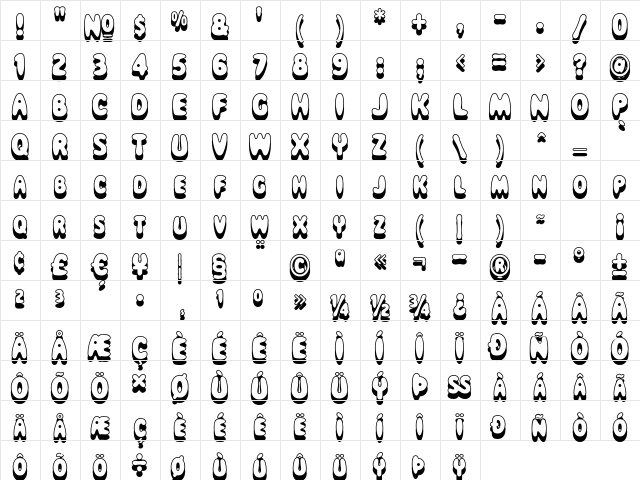
Magical Mystery Tour Outline Shadow Regular
Design Context for Magical Mystery Tour Outline Shadow
Magical Mystery Tour Outline Shadow is built around its visual character rather than neutral utility - its distinctive forms are designed to make an impression at display sizes.
Font Pairing: Pair with a clean neutral sans-serif for body copy to let Magical Mystery Tour Outline Shadow's character lead without overwhelming the composition.
Pro Tip: Use Magical Mystery Tour Outline Shadow exclusively at display sizes - it was designed to be seen, not read at length. Let a neutral companion handle body copy.